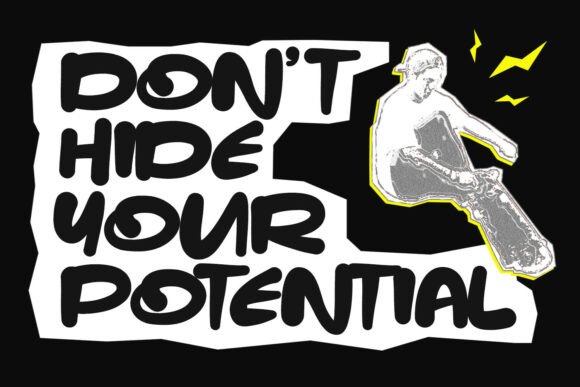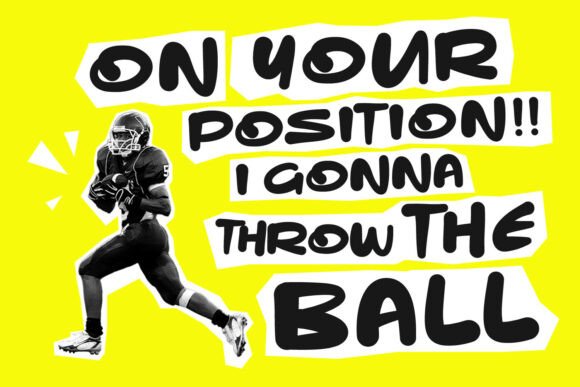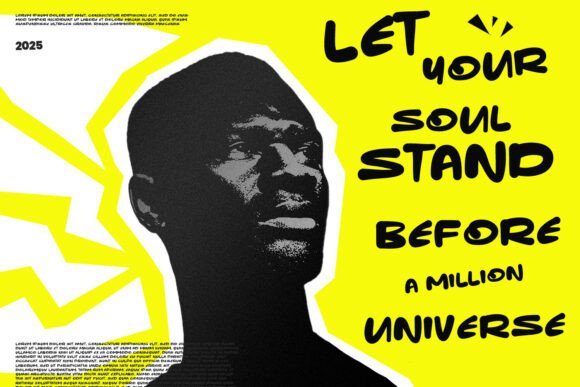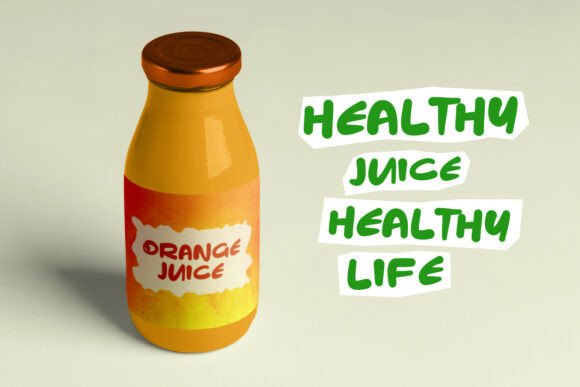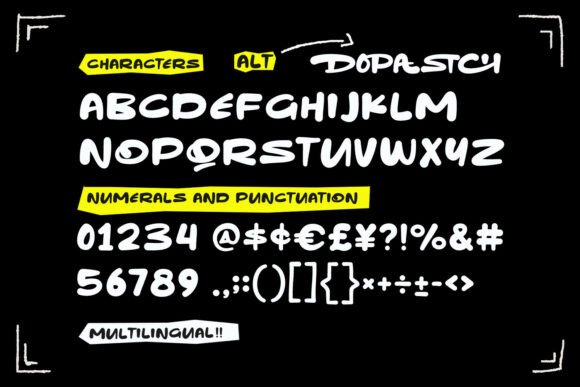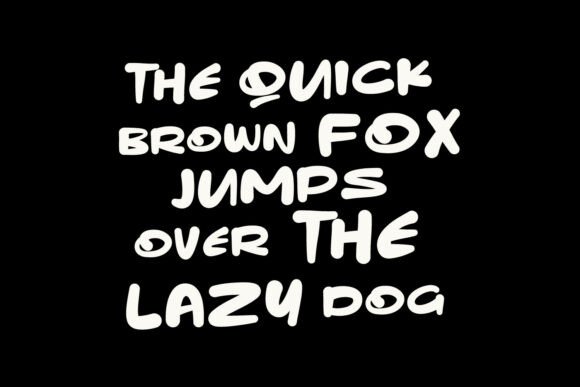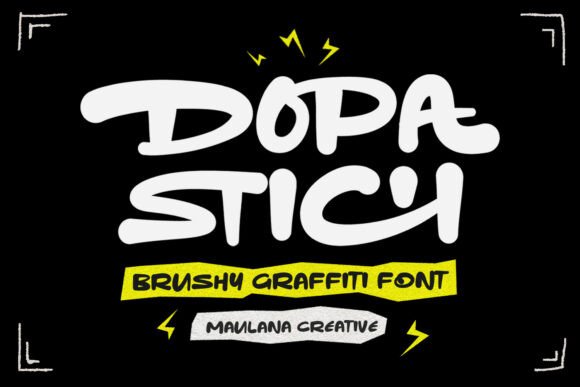
Unleash Bold Street Energy with Dopa Stich: The Ultimate Graffiti Font
In the world of design, fonts play a crucial role in conveying the tone and personality of a brand or project. For those looking to inject a dose of urban grit and rebelliousness into their work, Dopa Stich is the perfect choice. This brushy graffiti font is designed to command attention, making it ideal for streetwear branding, album covers, skate designs, and any project that needs an edgy, bold vibe.
The Raw Power of Graffiti Culture
Graffiti culture has long been a symbol of self-expression and rebellion. It’s a world where art meets activism, and Dopa Stich is a font that embodies this spirit. With its chunky, expressive letterforms and urban flair, this font brings the raw energy of the streets to your designs. Whether you’re a designer, craft, or artist, Dopa Stich is the perfect tool to add an edgy touch to your work.
What Makes Dopa Stich Unique?
So, what sets Dopa Stich apart from other fonts? Here are a few key features that make it a standout:
- Chunky, Expressive Letterforms: Dopa Stich boasts bold, chunky letterforms that are full of character. Each letter is carefully crafted to convey a sense of energy and movement.
- Urban Flair: This font is deeply rooted in graffiti culture, with an urban flair that’s hard to ignore. It’s perfect for designs that need a bold, streetwise vibe.
- Versatility: Dopa Stich is incredibly versatile, making it suitable for a wide range of projects, from streetwear branding to album covers, skate designs, and more.
Perfect for Streetwear Branding
Streetwear is all about attitude, and Dopa Stich is the perfect font to capture that spirit. Its bold, edgy letterforms make it ideal for branding projects that need to stand out in a crowded market. Whether you’re designing a logo, label, or packaging, Dopa Stich is sure to make a statement.
Album Covers and Music Branding
The music industry is no stranger to bold, eye-catching designs, and Dopa Stich is a font that’s perfectly suited to album covers and music branding. Its urban flair and rebellious vibe make it a natural fit for genres like hip-hop, punk, and rock.
Skate Designs and Action Sports
The world of action sports is all about high-energy, bold designs, and Dopa Stich is a font that’s right at home. Whether you’re designing skateboards, apparel, or promotional materials, this font is sure to capture the spirit of adventure and rebellion.
Tips for Using Dopa Stich
To get the most out of Dopa Stich, here are a few tips to keep in mind:
- Use it boldly: Dopa Stich is a font that’s designed to make a statement, so don’t be afraid to use it boldly. Large font sizes and bold colors will help your designs stand out.
- Experiment with colors: Graffiti culture is all about bright, bold colors, so don’t be afraid to experiment. Try pairing Dopa Stich with vibrant colors to add an extra layer of energy to your designs.
- Mix and match: Dopa Stich can be paired with a wide range of fonts and design elements. Try mixing and matching to create unique, eye-catching designs.
Dopa Stich is a font that’s all about attitude, energy, and rebellion. With its chunky, expressive letterforms and urban flair, it’s the perfect choice for designers and crafts looking to add a bold, edgy touch to their work. Whether you’re working on streetwear branding, album covers, skate designs, or any other project that needs a raw, streetwise vibe, Dopa Stich is the perfect tool to bring your words to life.